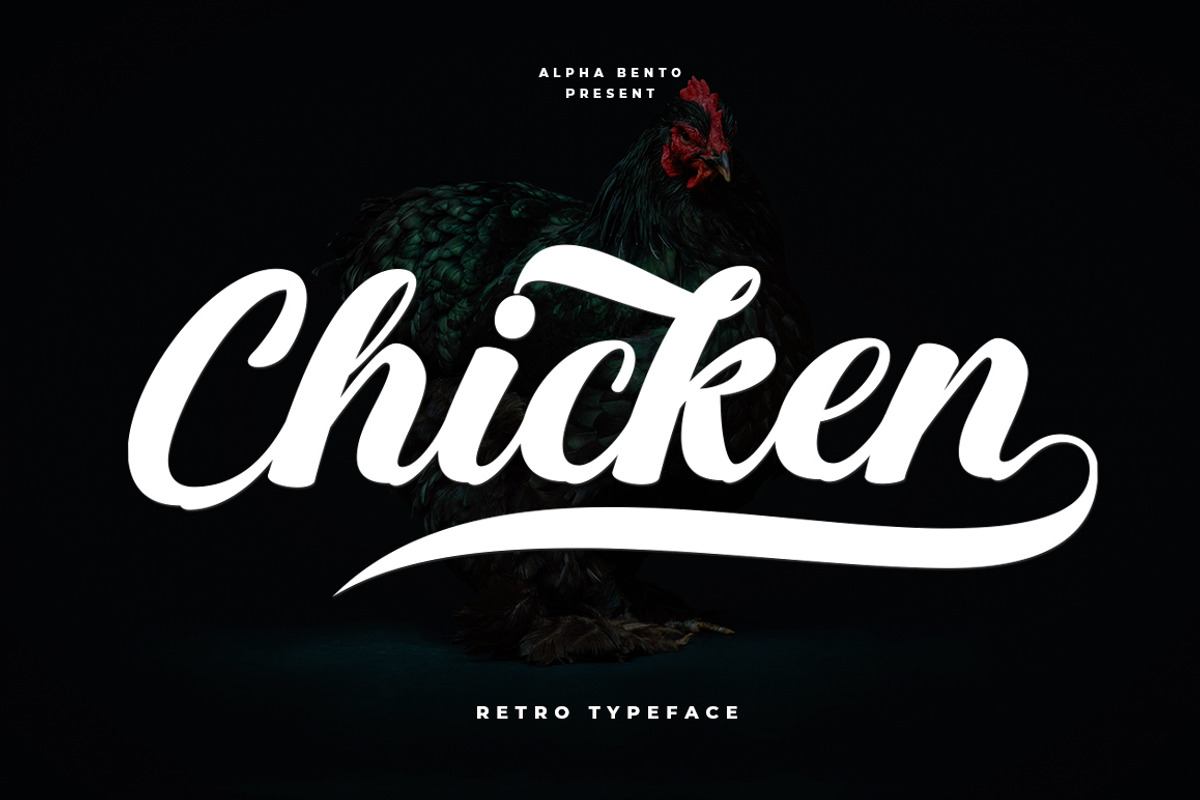
You must purchase this font for commercial use. However, you can download it for free to test its charming and playful style. Chicken Script Font Free Download offers a delightful handwritten script ideal for designers seeking a fun, casual aesthetic for branding, invitations, greeting cards, logos, packaging, and playful social media graphics. Its organic strokes and friendly curves convey warmth and personality, instantly connecting with your audience. Perfect for both digital and print projects, Chicken Script Font adds a whimsical touch, making your designs stand out with ease. Whether you're working on children’s books, culinary-themed designs, or engaging marketing materials, this font delivers creativity and charm. Chicken Script Font Free Download ensures excellent readability and versatility, enhancing the visual appeal of your work while maintaining a relaxed and approachable feel. Try Chicken Script Font today to add personality, fun, and an inviting flair to your next design project.